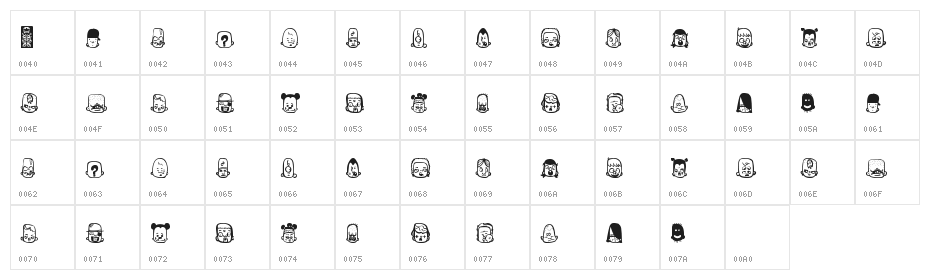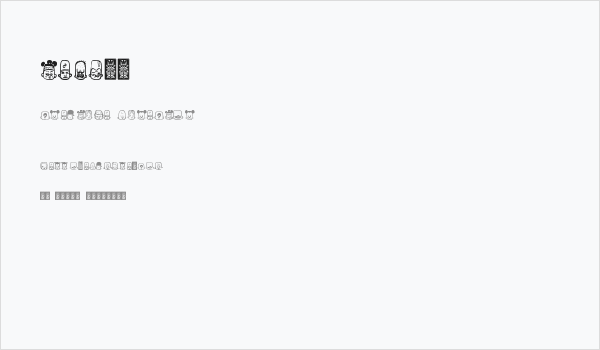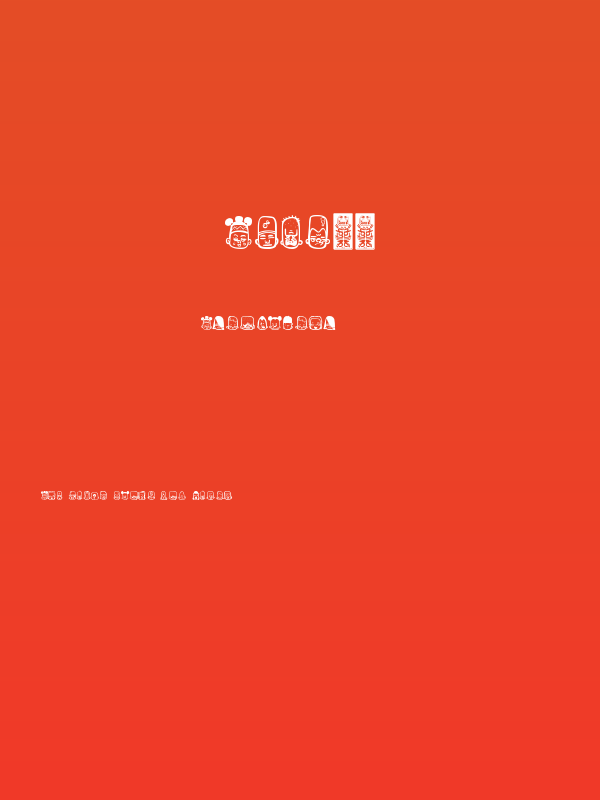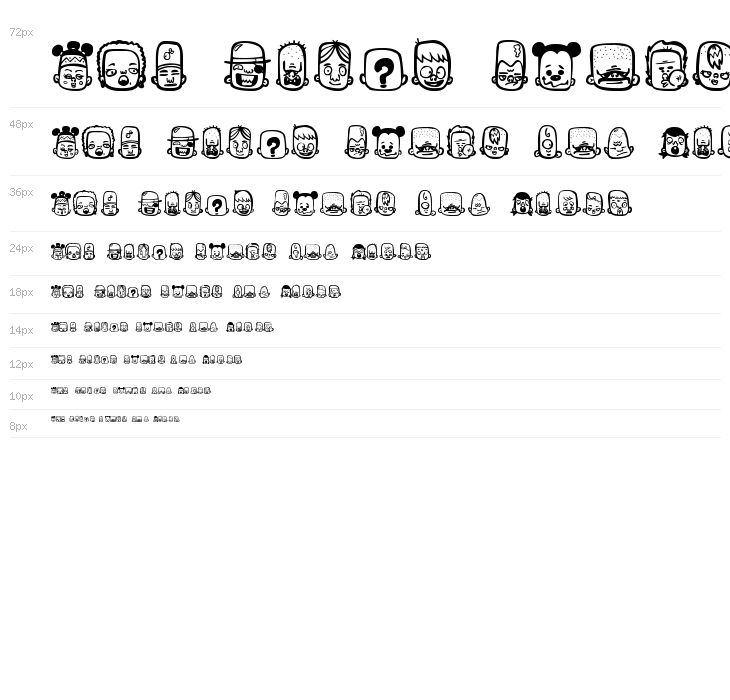
Teubé2 Font
Teubé2 Description
A playful, highly decorative font composed of unique cartoon faces for each character, featuring bold outlines and expressive, whimsical details. Numbers and symbols are represented by intricate totem-like designs, maintaining a consistent visual theme throughout.
| Overall Style | Decorative, Playful, Whimsical |
| Use Case | Logos, Posters, Headlines, Children’s materials |
| Proposed Projects | Children’s books, party invitations, posters, comic titles, playful branding. |